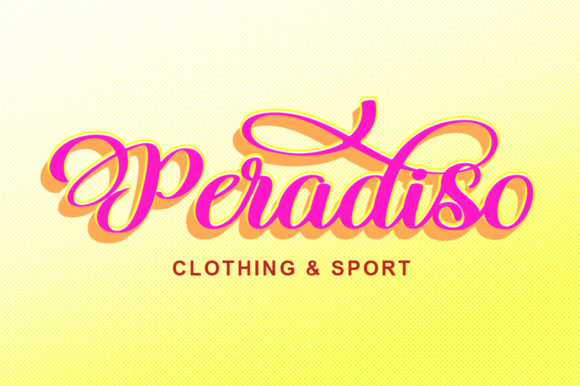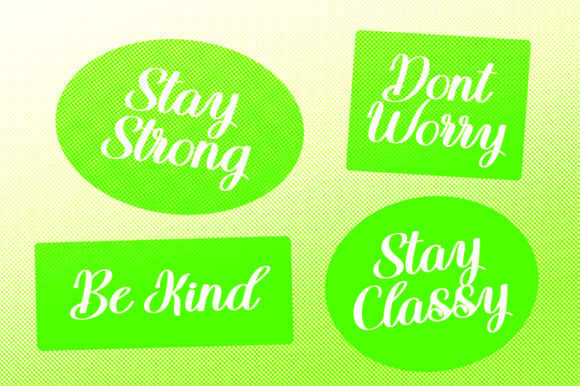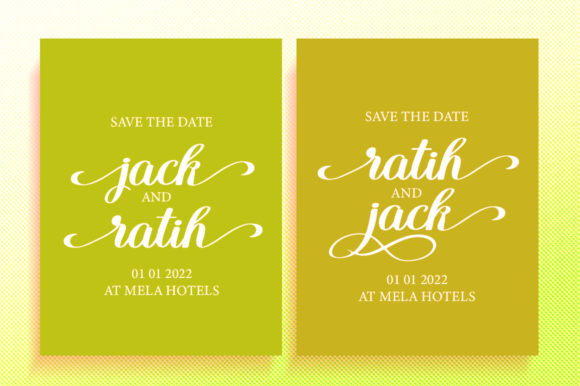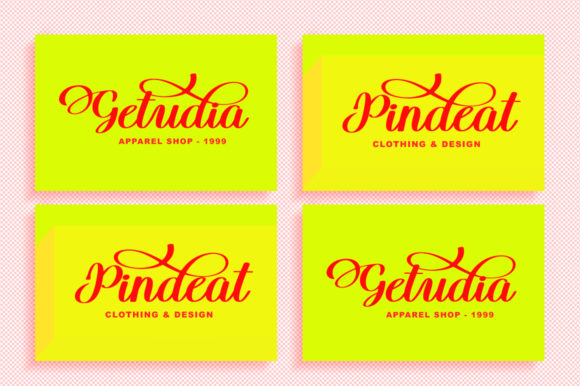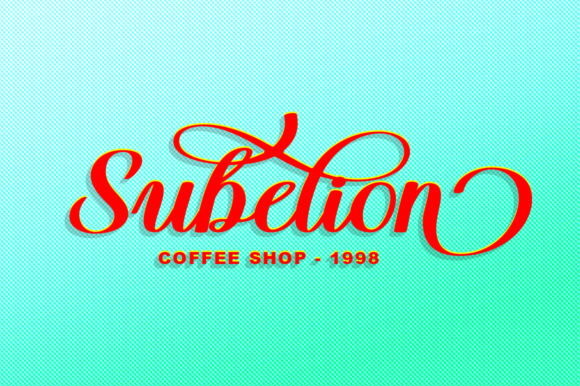
The Perfect Blend of Style and Nostalgia: Belsani Font
Have you ever stared at a blank canvas, trying to conjure up the perfect headline to grab the attention of your audience? We’ve all been there. The struggle is real, but the moment of triumph is all the sweeter when it happens. And that’s exactly what the Belsani Font is designed to help you achieve – a stylish, confident, and dynamic look that will leave your audience in awe.
Belsani Font is a gorgeous and bold handwritten font, crafted to give your headlines and logotype projects a touch of nostalgic character. With its strong, confident feel, this font is a must-have for designers looking to add a unique touch to their designs. Whether you’re working on a branding project or creating a promotional campaign, the Belsani Font is sure to make a lasting impression.
So why is the Belsani Font so valuable for designers? For one, it offers a level of sophistication and elegance that’s hard to find in other fonts. Plus, its versatility makes it perfect for a wide range of projects, from fashion and beauty to food and travel. With the Belsani Font, you can add a dash of personality to your designs and make them truly stand out.
Belsani Font Key Features
- Unique Characteristics: Belsani Font features a modern, elegant script with swashes, flourishes, and a touch of sophistication
- Font Pairing: Designed to pair well with sans-serif fonts, perfect for creating a harmonious and professional look
Belsani Font Review
As a designer, I was excited to dive into the Belsani font and see what it had to offer. Here’s my honest review:
- Unique and elegant design: The Belsani font has a distinctive, hand-drawn feel that sets it apart from more common fonts.
- Excellent for creative projects: Its expressive lines and flourishes make it perfect for projects that need a touch of personality.
- Good legibility: Despite its decorative nature, the font remains easy to read, even at smaller sizes.
- Limited versatility: While the Belsani font is great for creative projects, it may not be the best choice for formal or technical documents.
- No language support: As of my knowledge cutoff, the font only supports English and a few other languages, which may be a limitation for multilingual projects.
- Some character inconsistencies: I noticed a few instances where the font’s characters didn’t quite match up, which could be a problem for projects that require precise typography.
The Belsani font is a beautiful, creative option that’s perfect for designers looking to add some personality to their projects. While it may not be the best choice for every project, it’s definitely worth considering for those that need a touch of elegance and whimsy.
The Belsani font is ideal for:
- Branding materials
- Restaurant and cafe menus
Tips for Getting the Most Out of Belsani
For optimal results, use Belsani in conjunction with a sans-serif font for body text. Experiment with different font sizes and colors to create visual interest. Consider pairing Belsani with a bold or italic version of the font for added emphasis.